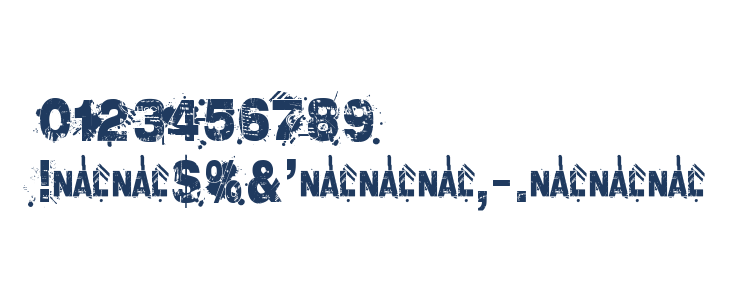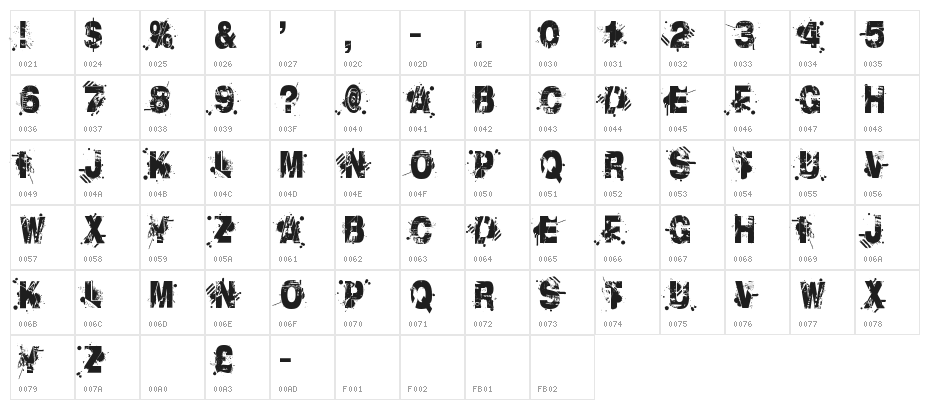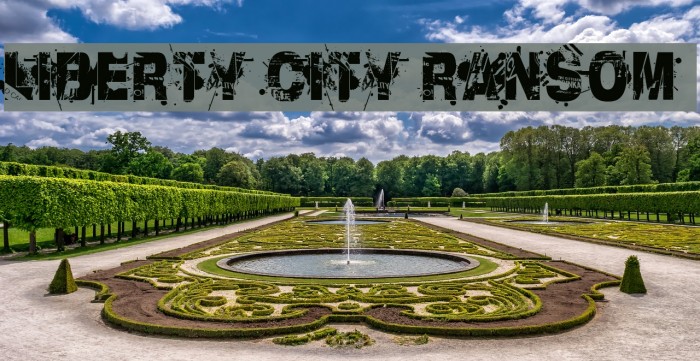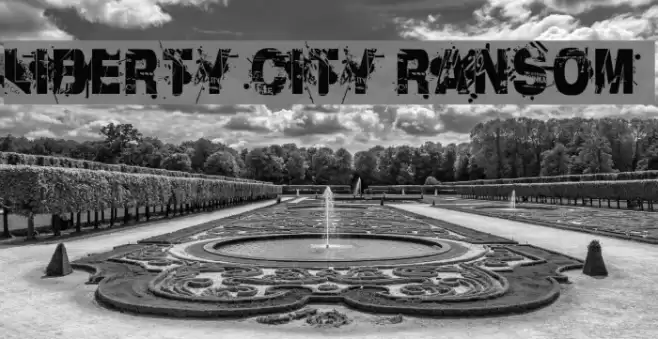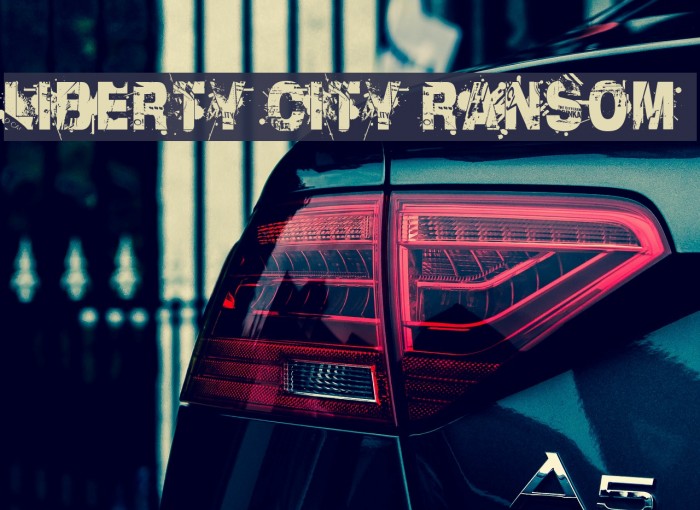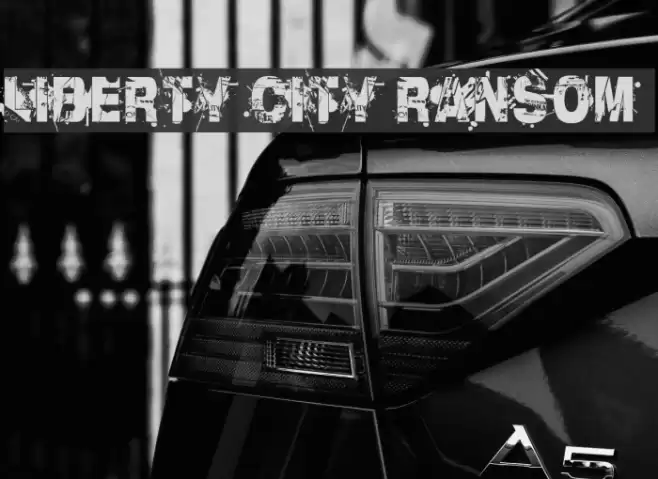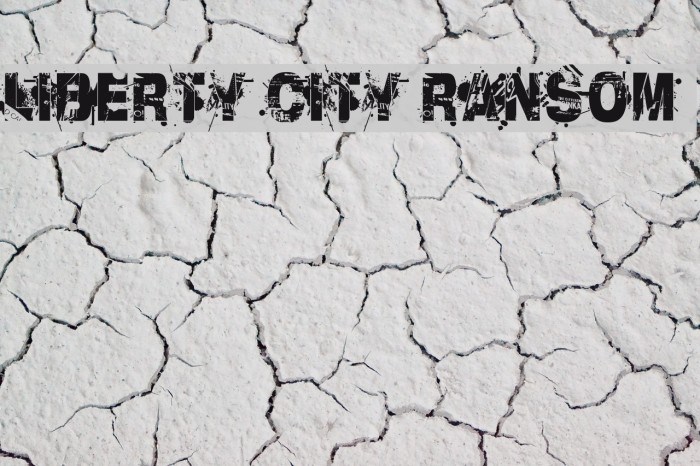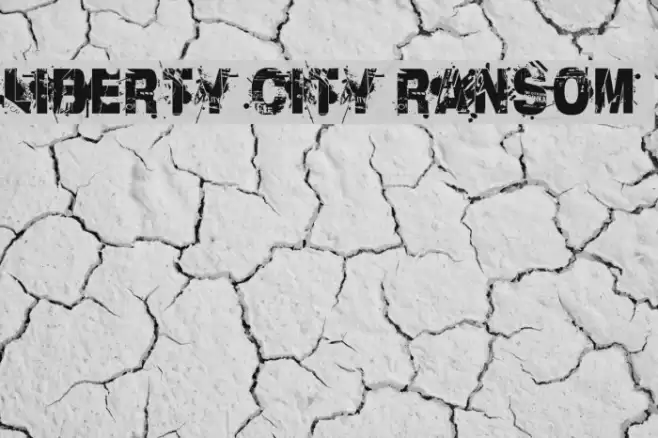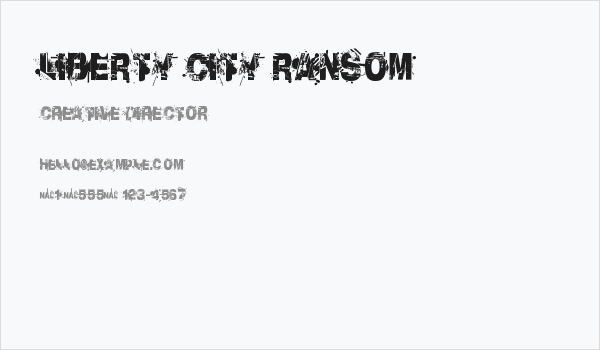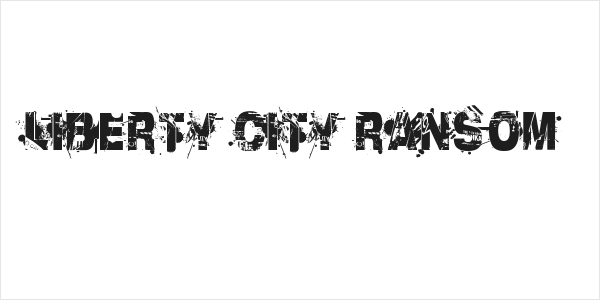
Liberty City Ransom Font
Liberty City Ransom Description
This font features a bold, distressed style with a grunge aesthetic. Each character is heavily textured, giving it a chaotic and urban feel. The letters are uppercase and lowercase, with numbers and special characters included. The design incorporates splatters and rough edges, creating a sense of movement and energy. This font is ideal for projects that require a raw, edgy look, such as music posters, street art, or rebellious branding. Its unique style makes it stand out, capturing attention with its bold and unconventional appearance.
| Overall Style | Grunge, Urban, Edgy |
| Proposed Projects | Music posters, street art, rebellious branding, edgy graphic designs. |